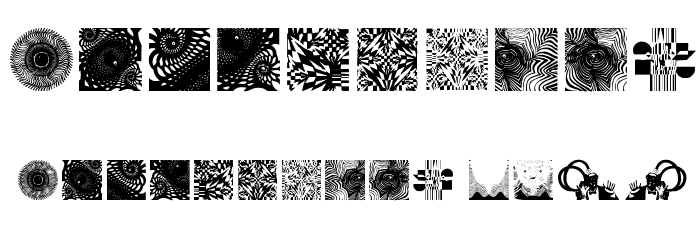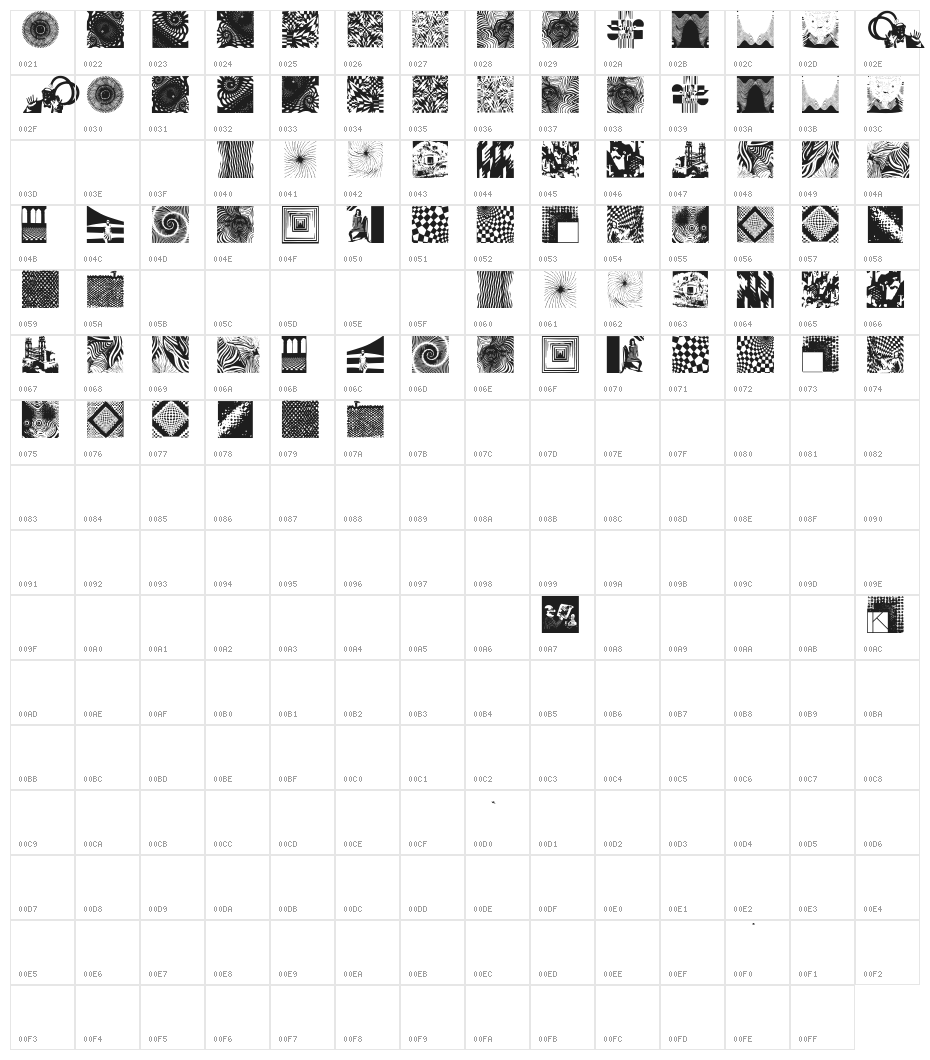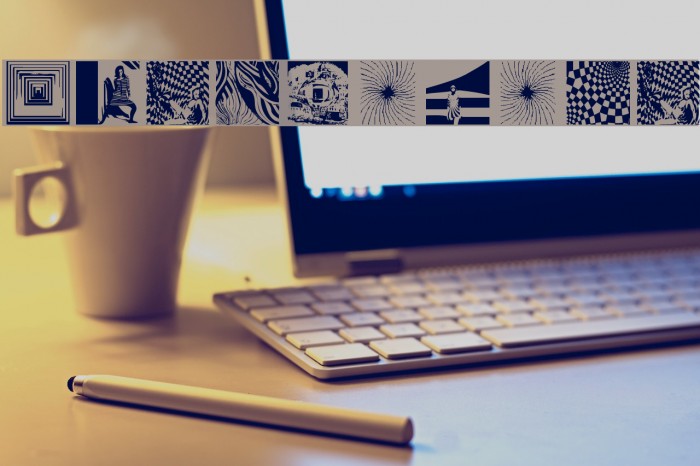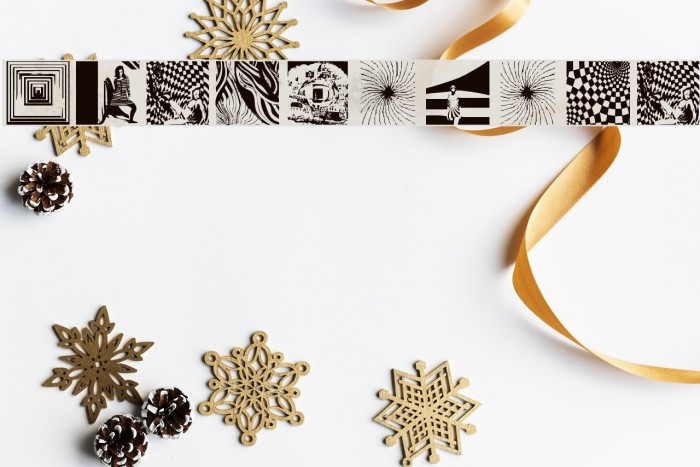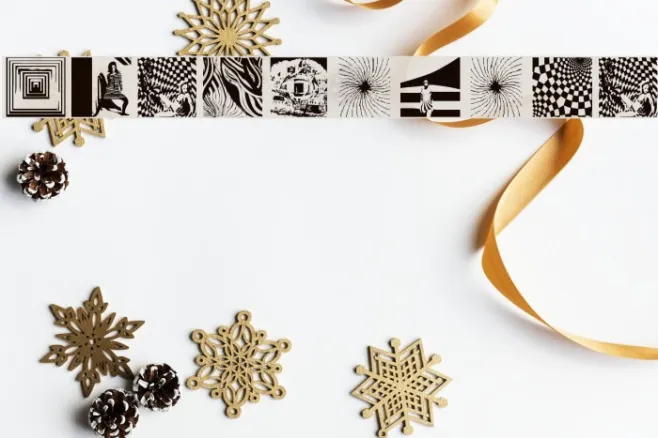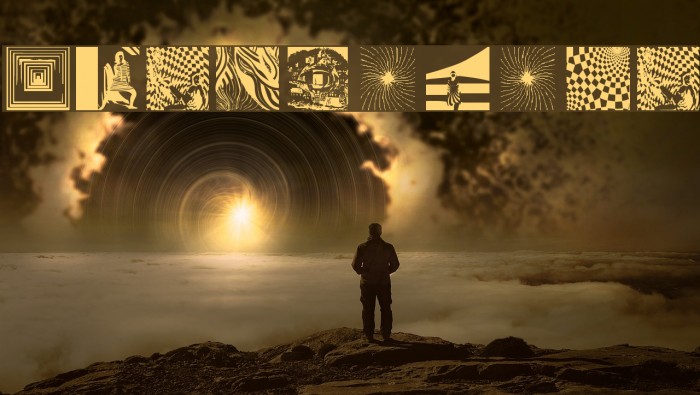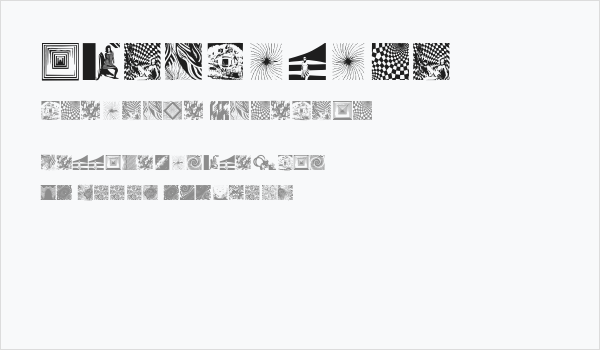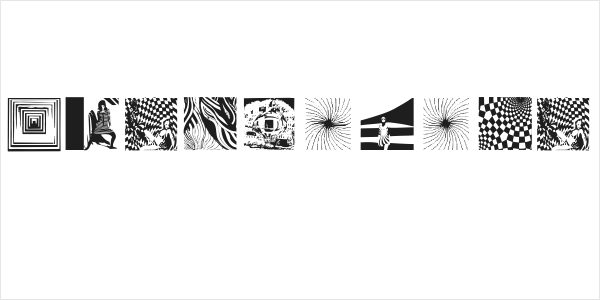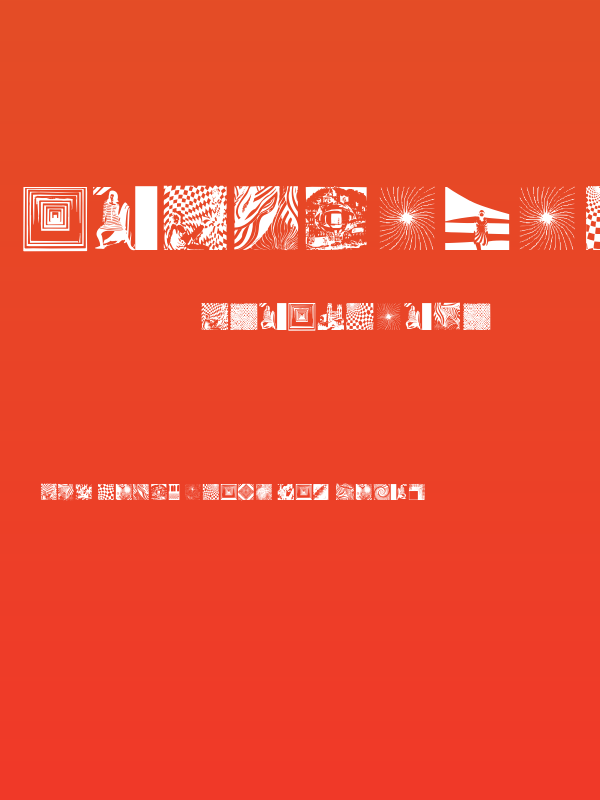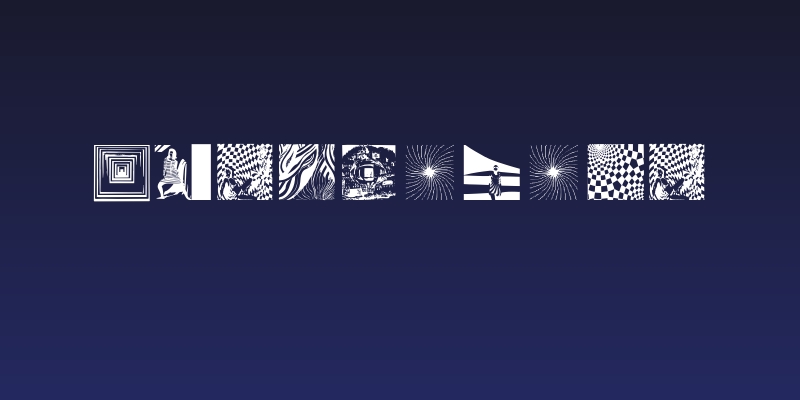
OpticalArt Font
OpticalArt Description
Highly decorative and abstract font composed of intricate black-and-white optical illusions and geometric patterns, with each character represented by a unique visual motif rather than traditional letterforms.
| Overall Style | Decorative, Abstract, Modern, Psychedelic |
| Use Case | Headlines, Posters, Artistic projects, Visual identity |
| Proposed Projects | Posters, album covers, experimental branding, art installations, editorial graphics. |